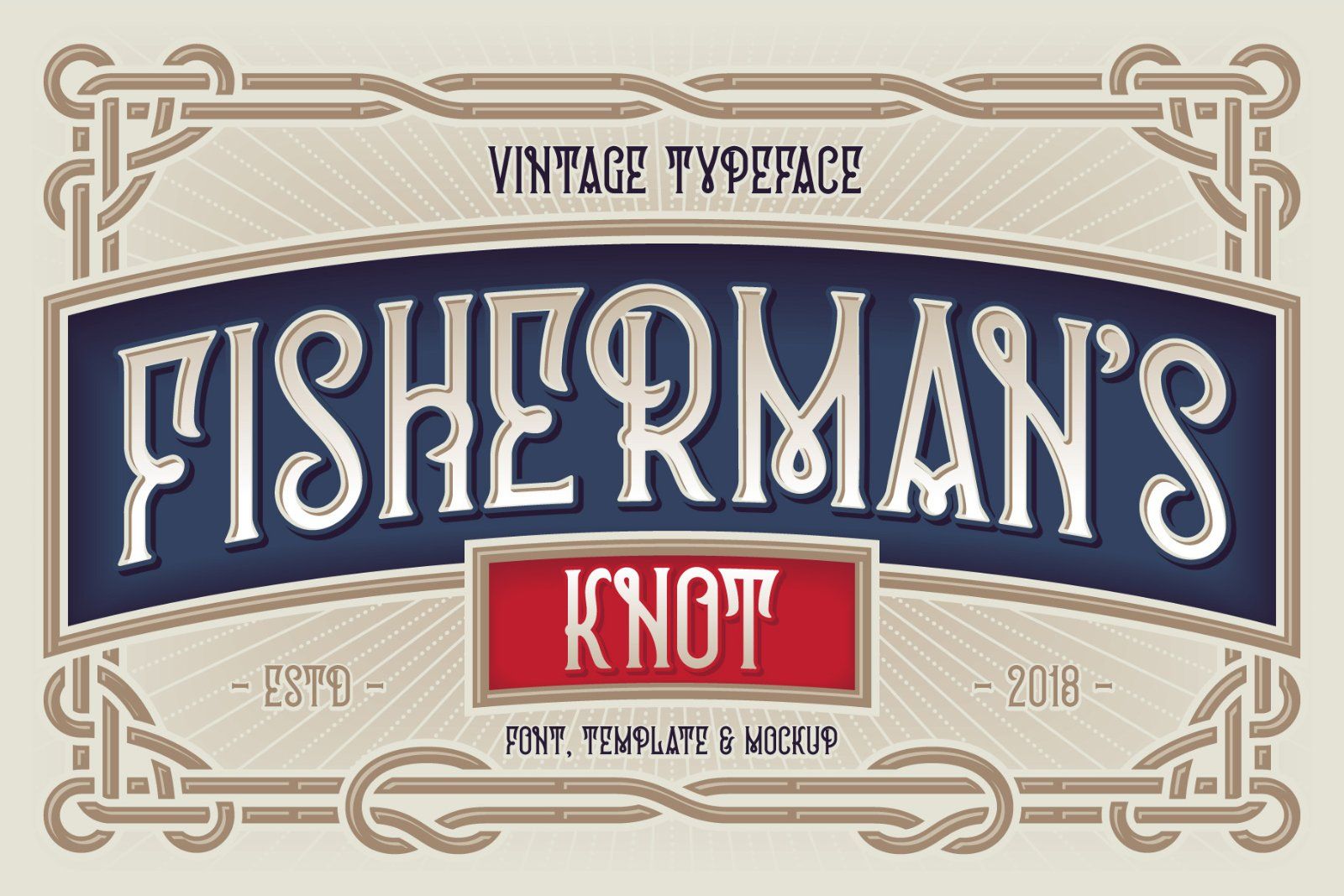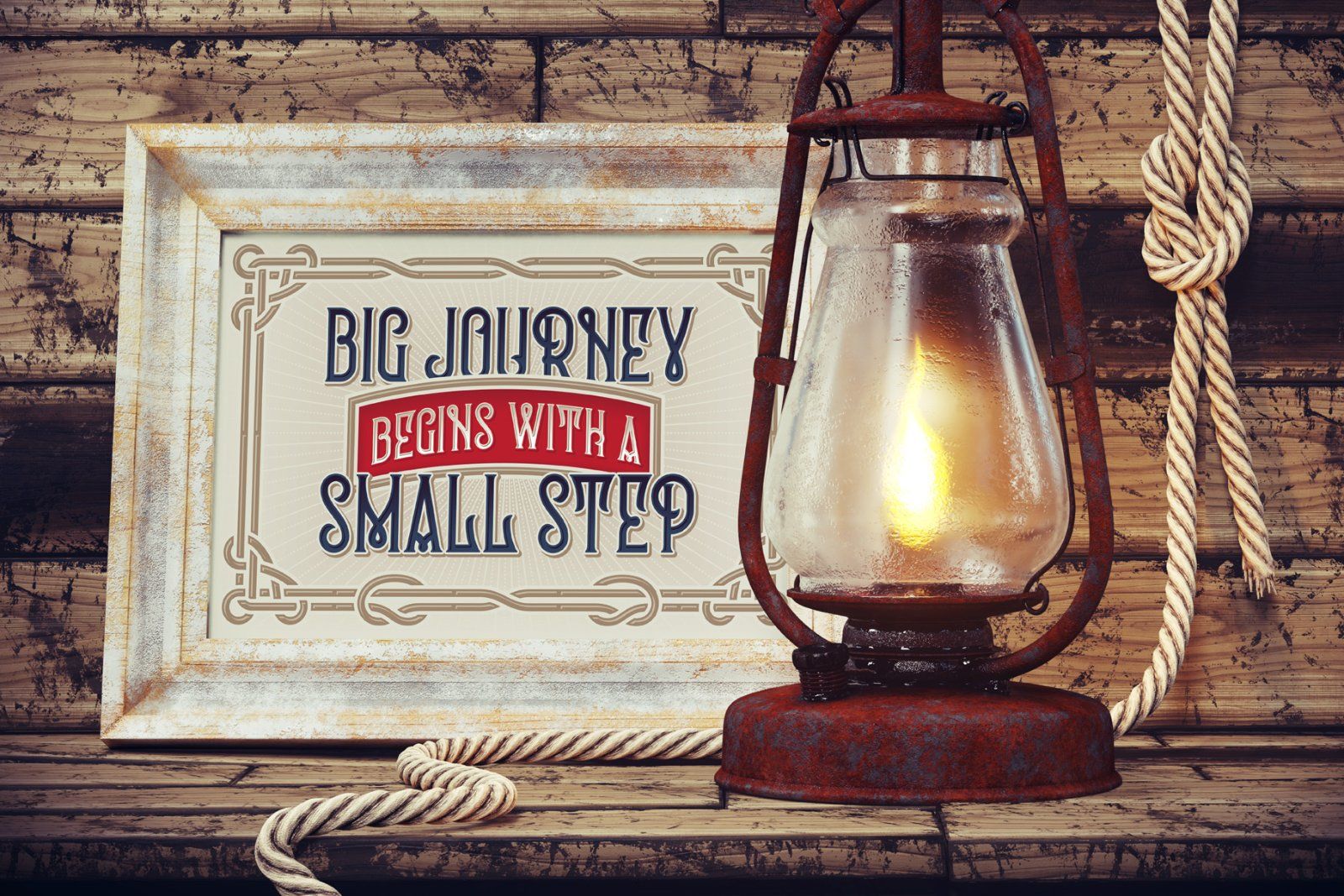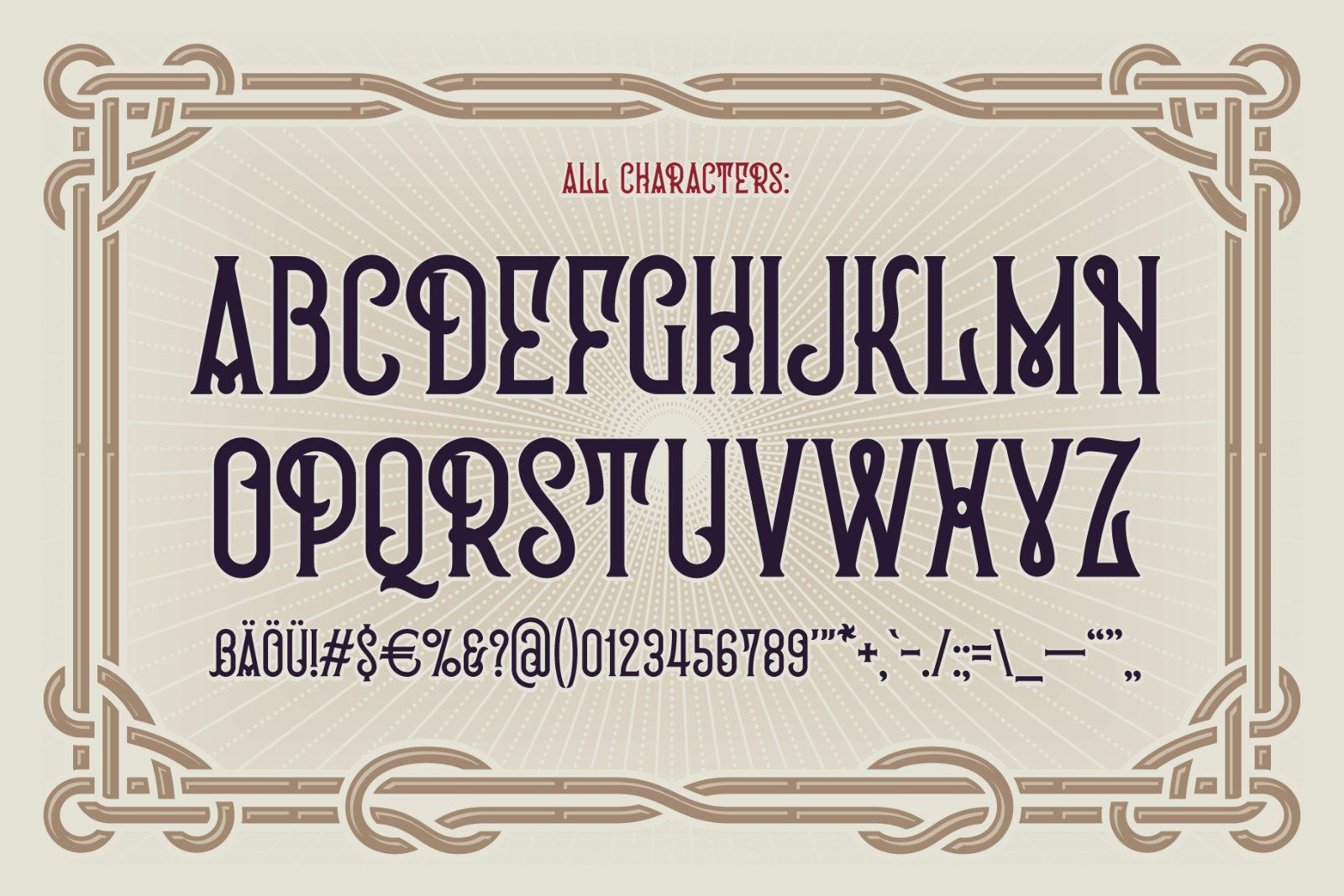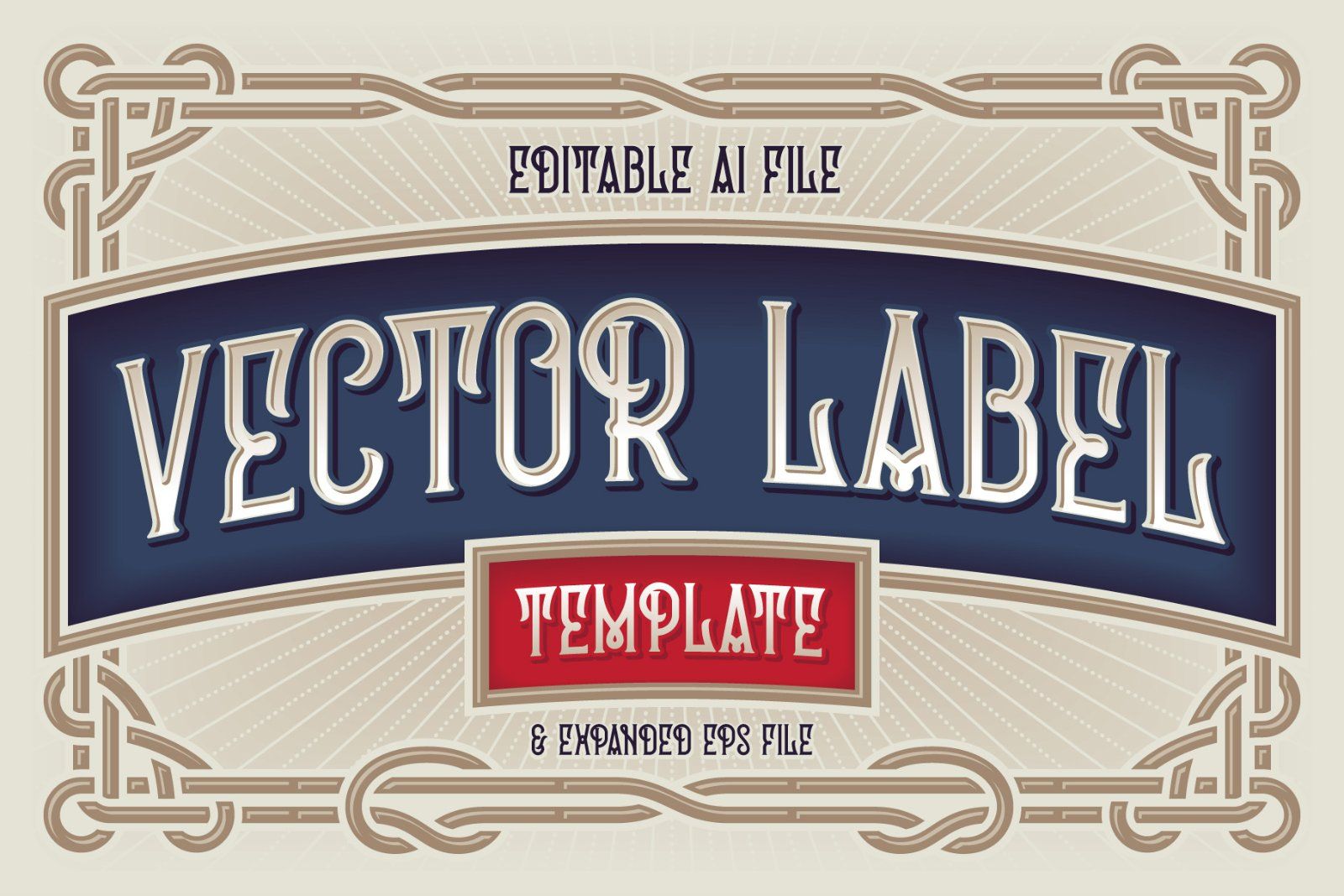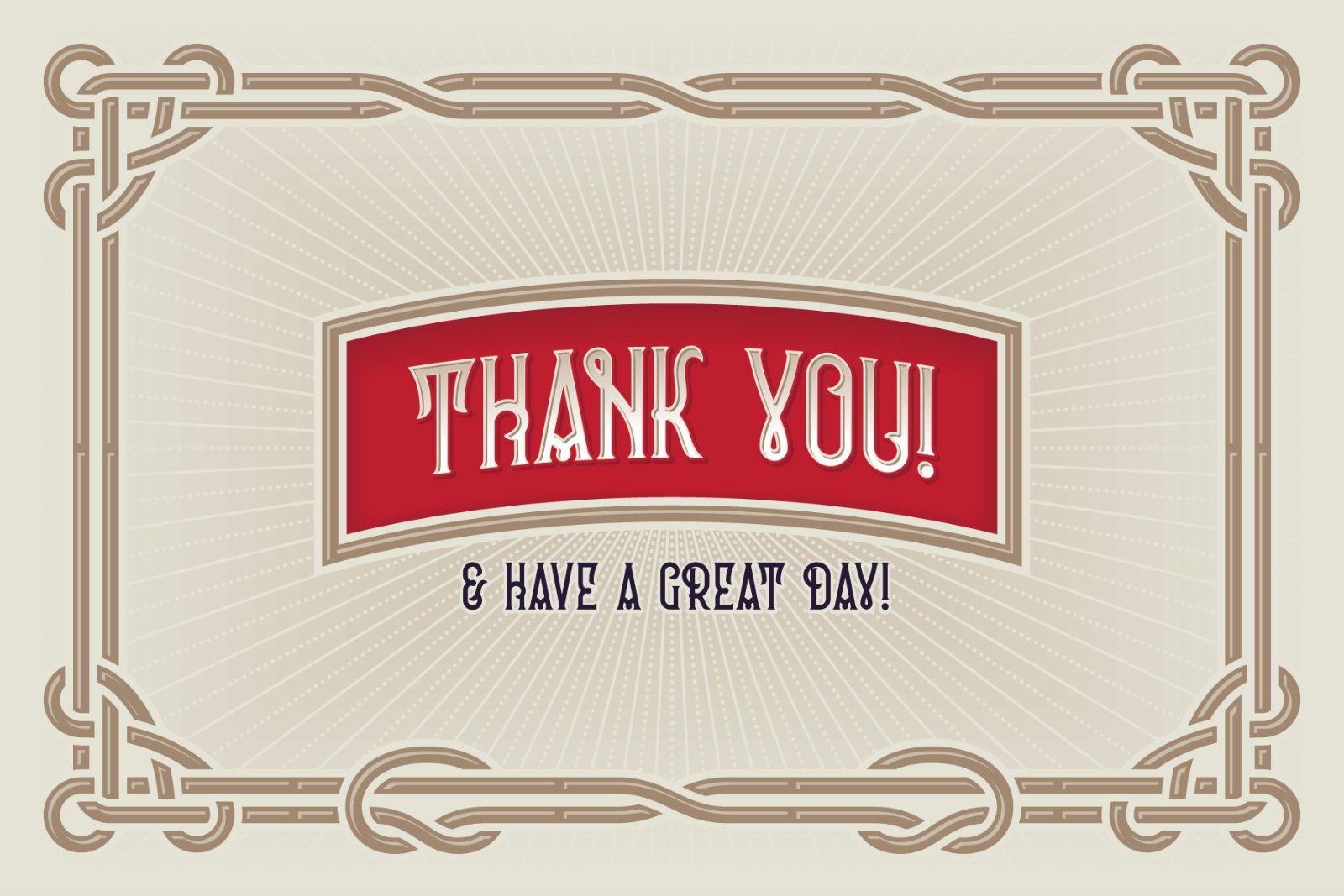
Hi! Presenting a vintage typeface named "Fisherman's Knot". It's style inspired by boating knots and old graphics heritage. This set also includes an editable vector template with beautiful ornate design (4th screenshot). Also you will get a PSD mockup with old oil lamp and wooden frame with replaceable art inside.